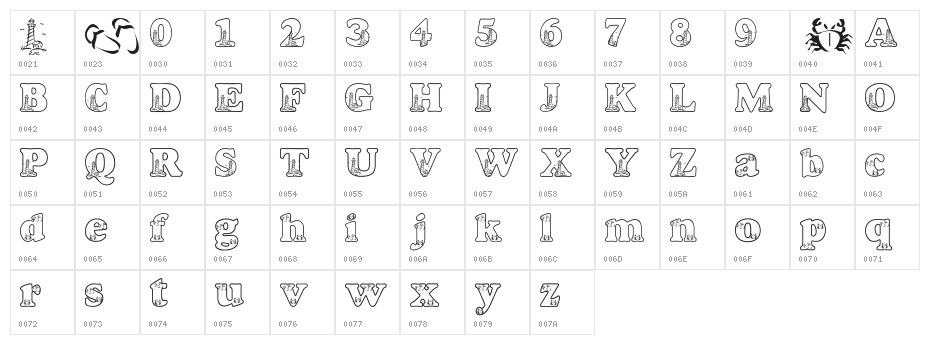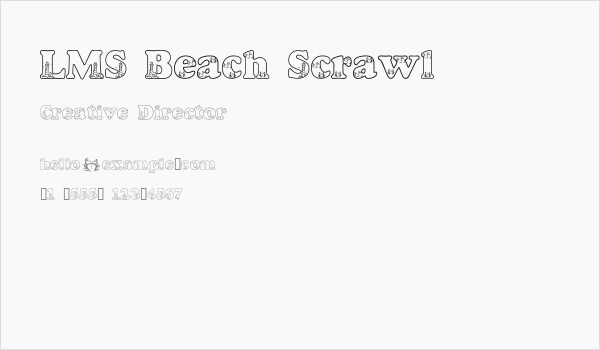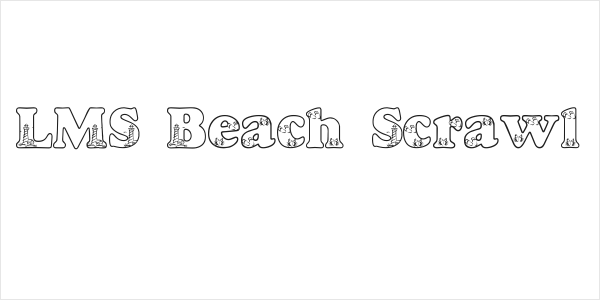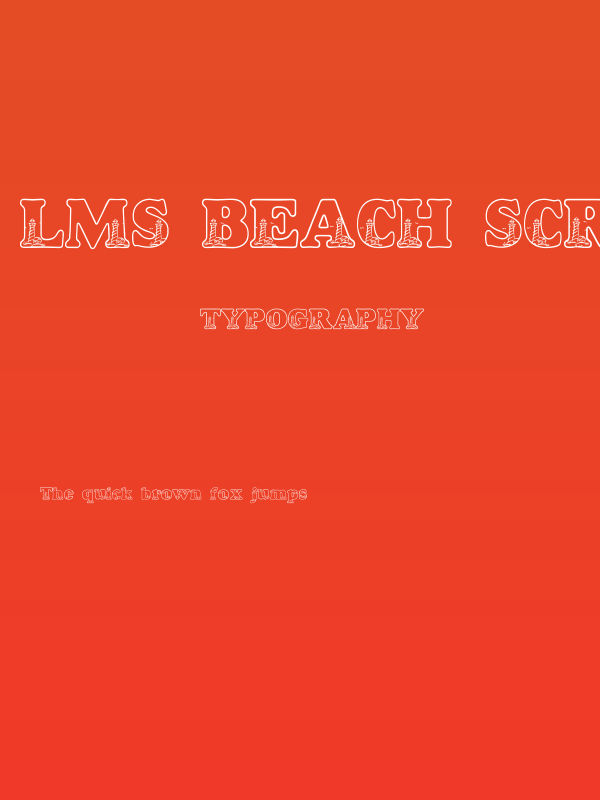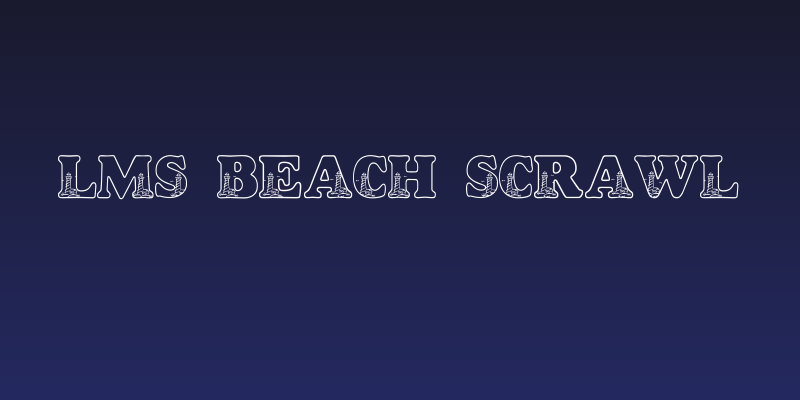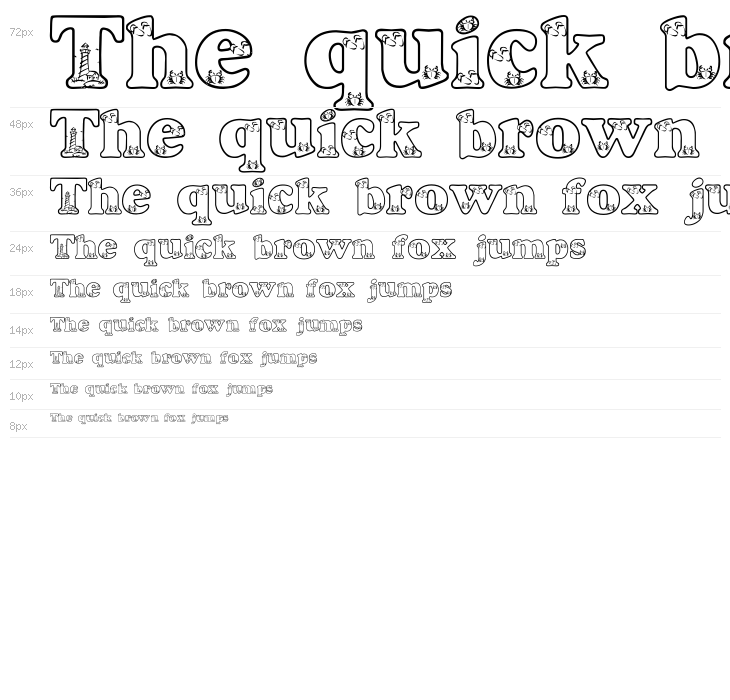
LMS Beach Scrawl Font
LMS Beach Scrawl Description
This playful and decorative font features a unique beach-themed design within each character. The letters are bold and outlined, with intricate illustrations of beach elements like sandcastles and waves filling the interior. The style is whimsical and eye-catching, making it ideal for projects that require a fun and lively touch. The font maintains a consistent width and character spacing, ensuring readability while still offering a creative flair. Its distinct design makes it perfect for summer-themed projects, children's materials, or any creative endeavor that seeks to evoke a sense of fun and adventure.
| Proposed Projects | Ideal for summer-themed posters, children's books, party invitations, and beach event branding. |